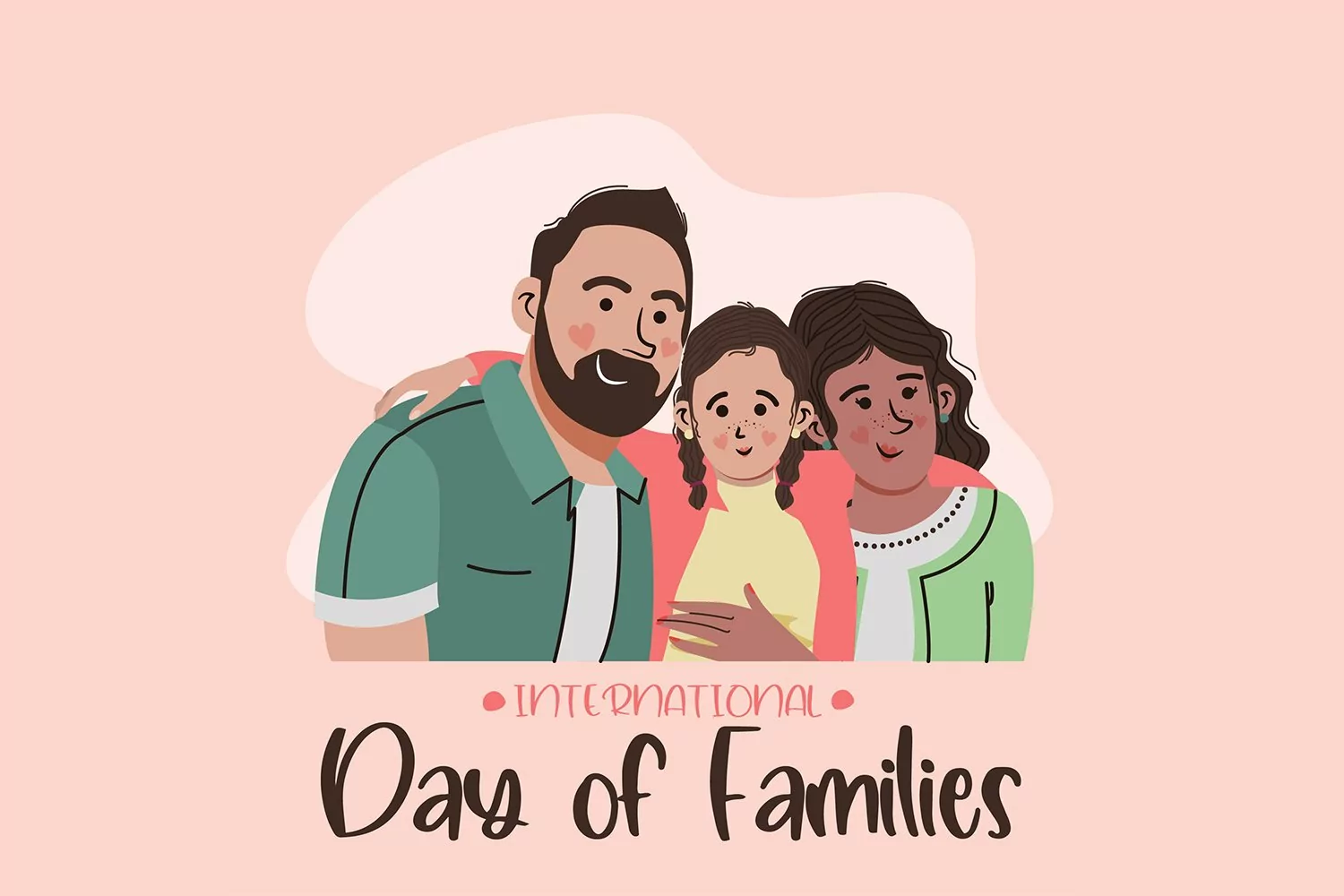
Blistering Heat - Summer Kids Font that contain lowercase, uppercase, symbol, and also support multi language. There’s a lot ligatures in this font. This Font also comes with ligatures, alternates and many more. this font suitable for fashion, branding, catalog and other design what you want.